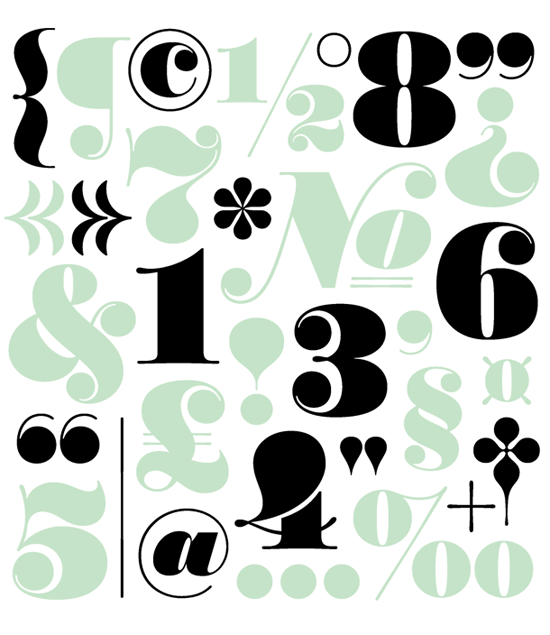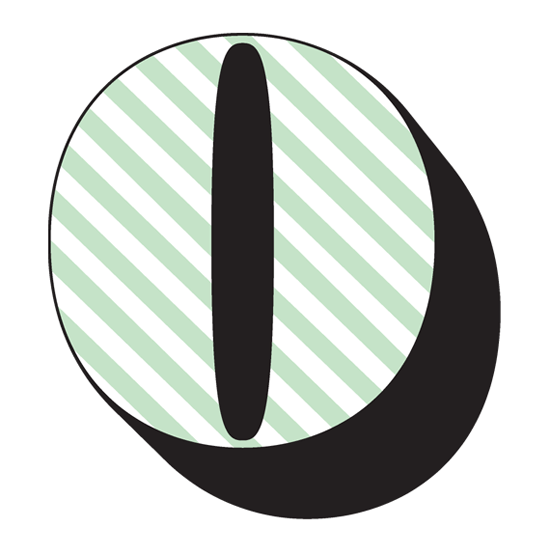
Worthe Numerals bring an outsized take on didot numeral forms to Photo-Lettering. Worthe helps to bring life to your actuarial tables, BMX number plate adornment, New Year’s Eve count downs, and anywhere else where a voluminous fat-face number set fits the bill. The numeral set is also available at House Industries as a conventional font.